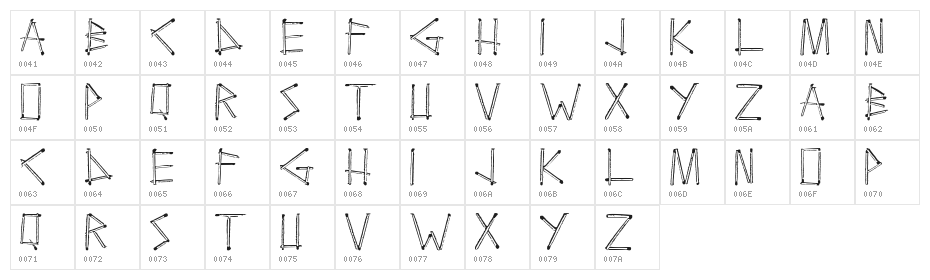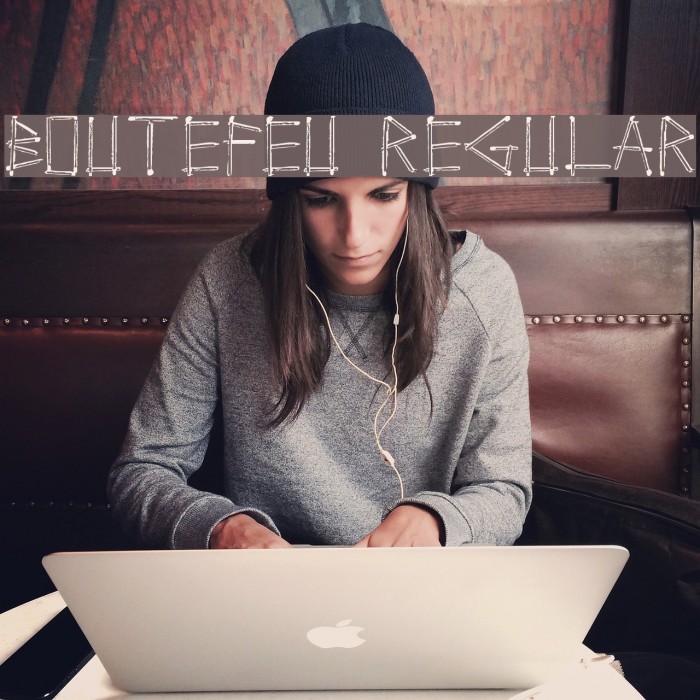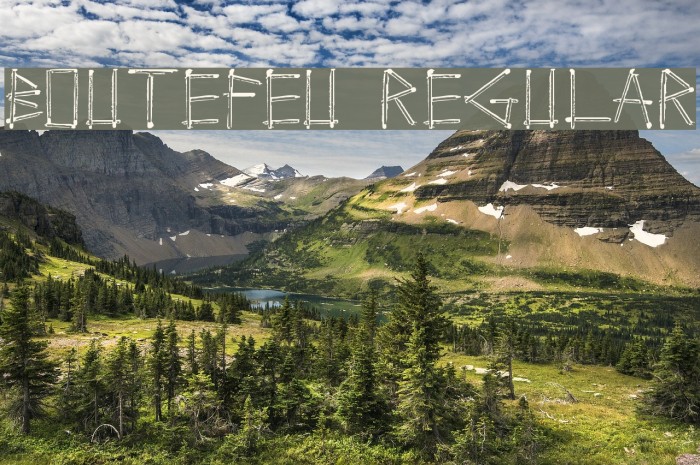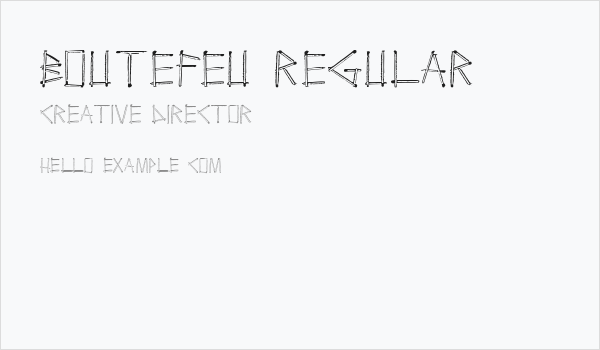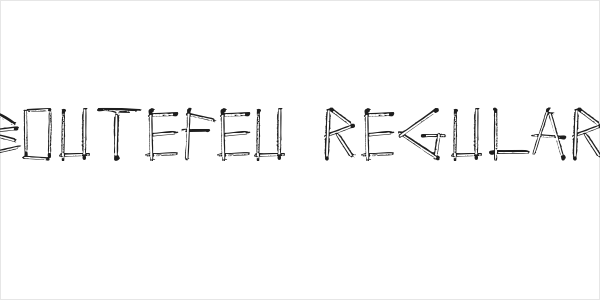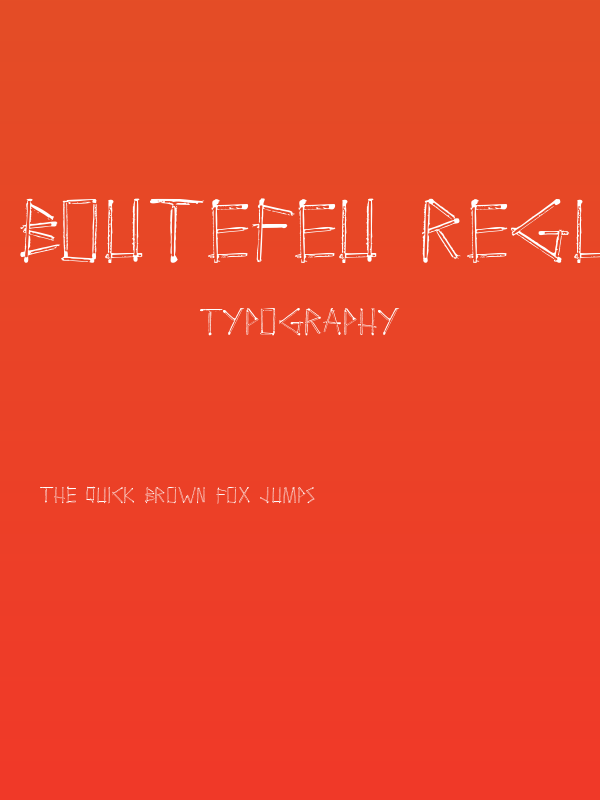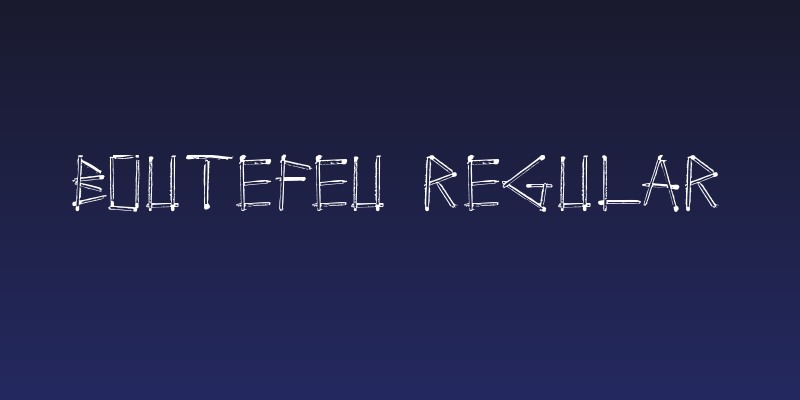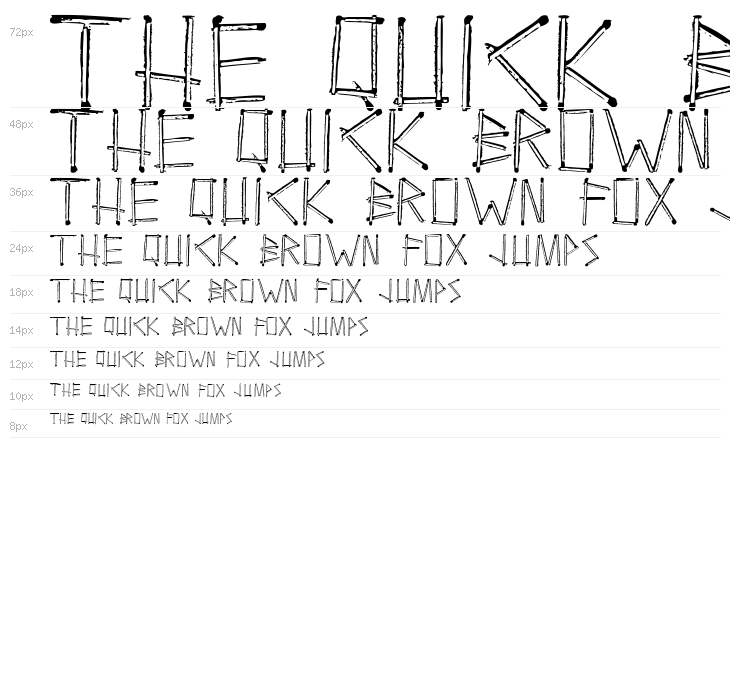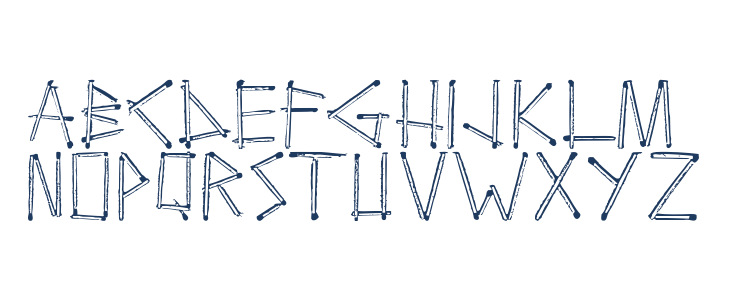
Boutefeu Regular Font
Boutefeu Regular Description
This font features a unique and playful design, resembling matchsticks or thin rods connected at various angles. Each character is constructed with a series of straight lines and dots, giving it a handcrafted and artistic appearance. The uppercase letters are bold and striking, with a consistent height and width, while the lowercase letters maintain the same playful style. The numbers and special characters follow the same design principles, ensuring a cohesive look across all elements. This font is ideal for creative projects that require a distinctive and eye-catching typeface.
| Overall Style | Artistic, Playful |
| Use Case | Headlines, Posters, Creative Branding |
| Proposed Projects | Ideal for creative projects, children's books, posters, and artistic branding. |